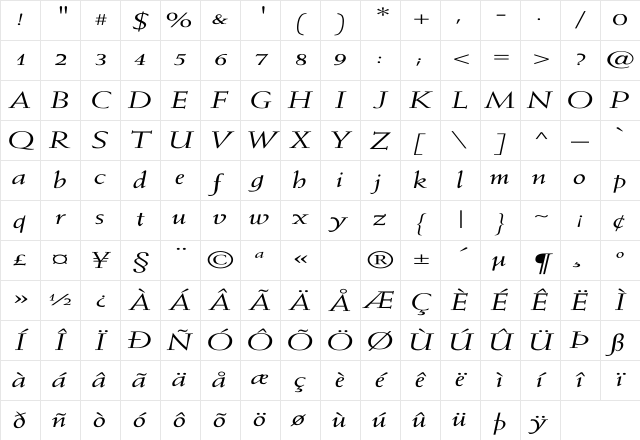
Design Context for Weiss-Italic Ex
Weiss-Italic Ex is a composed and adaptable typeface that performs quietly and consistently across a wide range of design contexts. The slanted form adds forward momentum and visual energy.
Pro Tip: Use Weiss-Italic Ex for emphasis, pull quotes, and subheadings where its slanted energy can add rhythm to the layout.